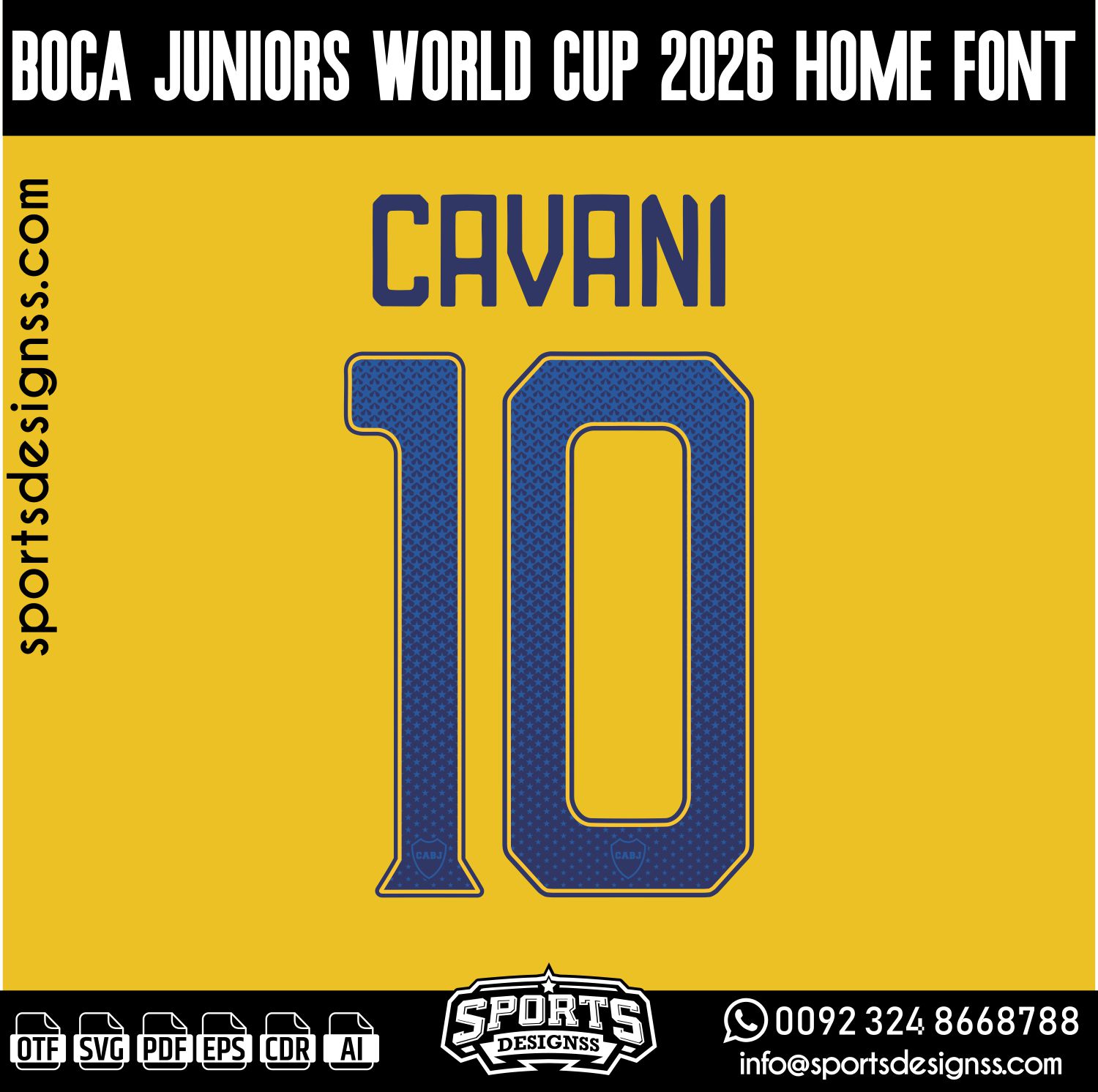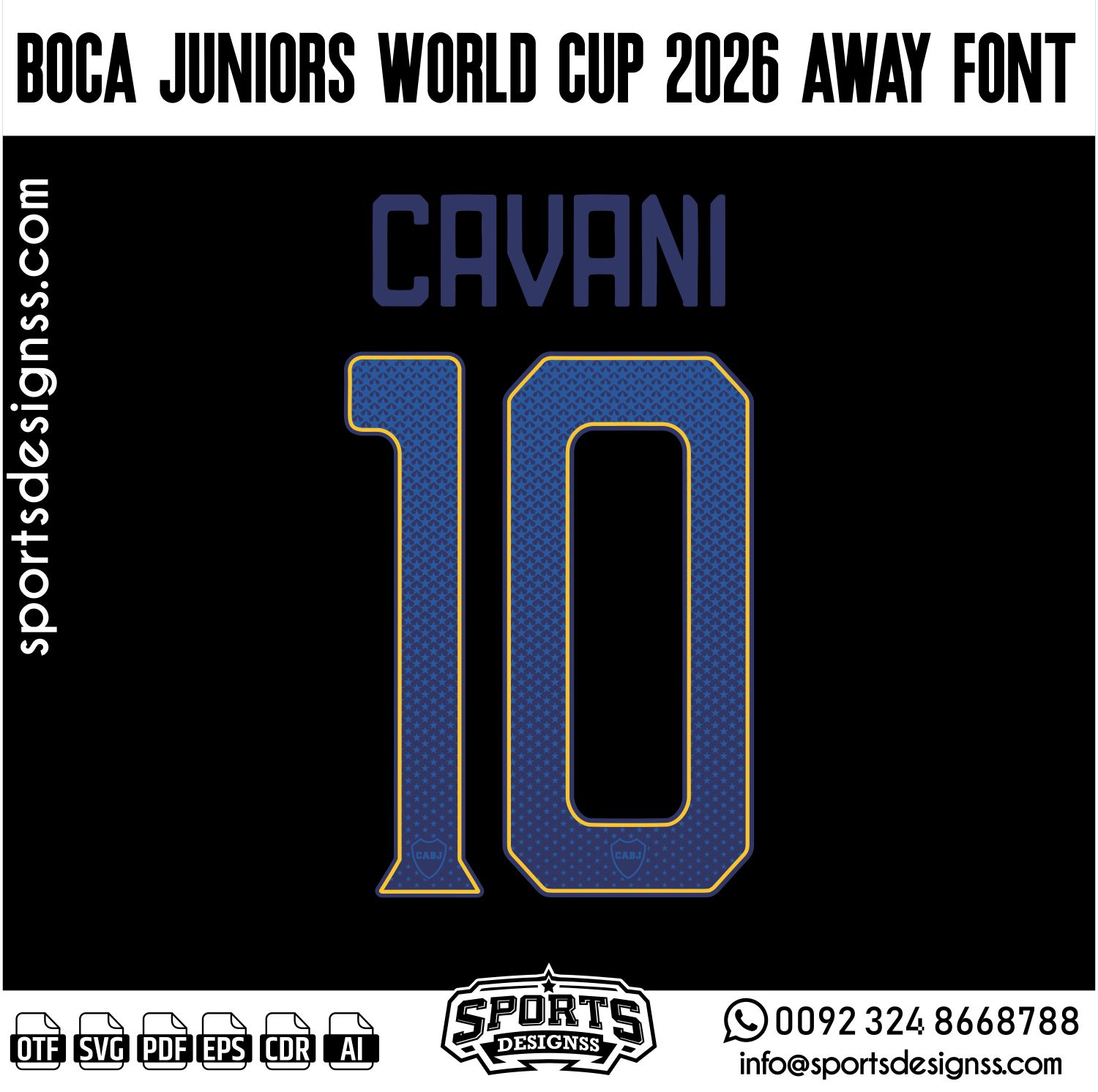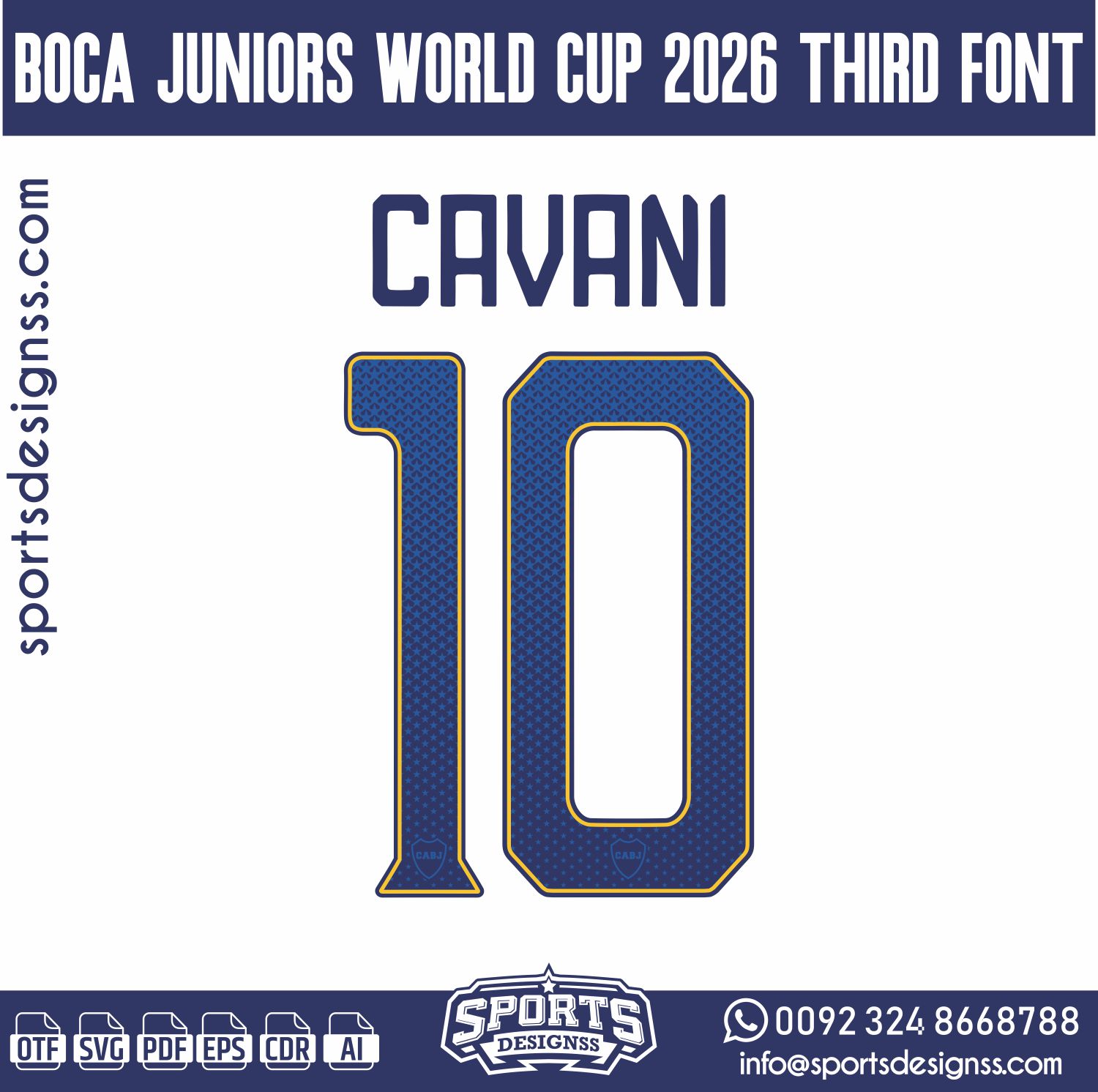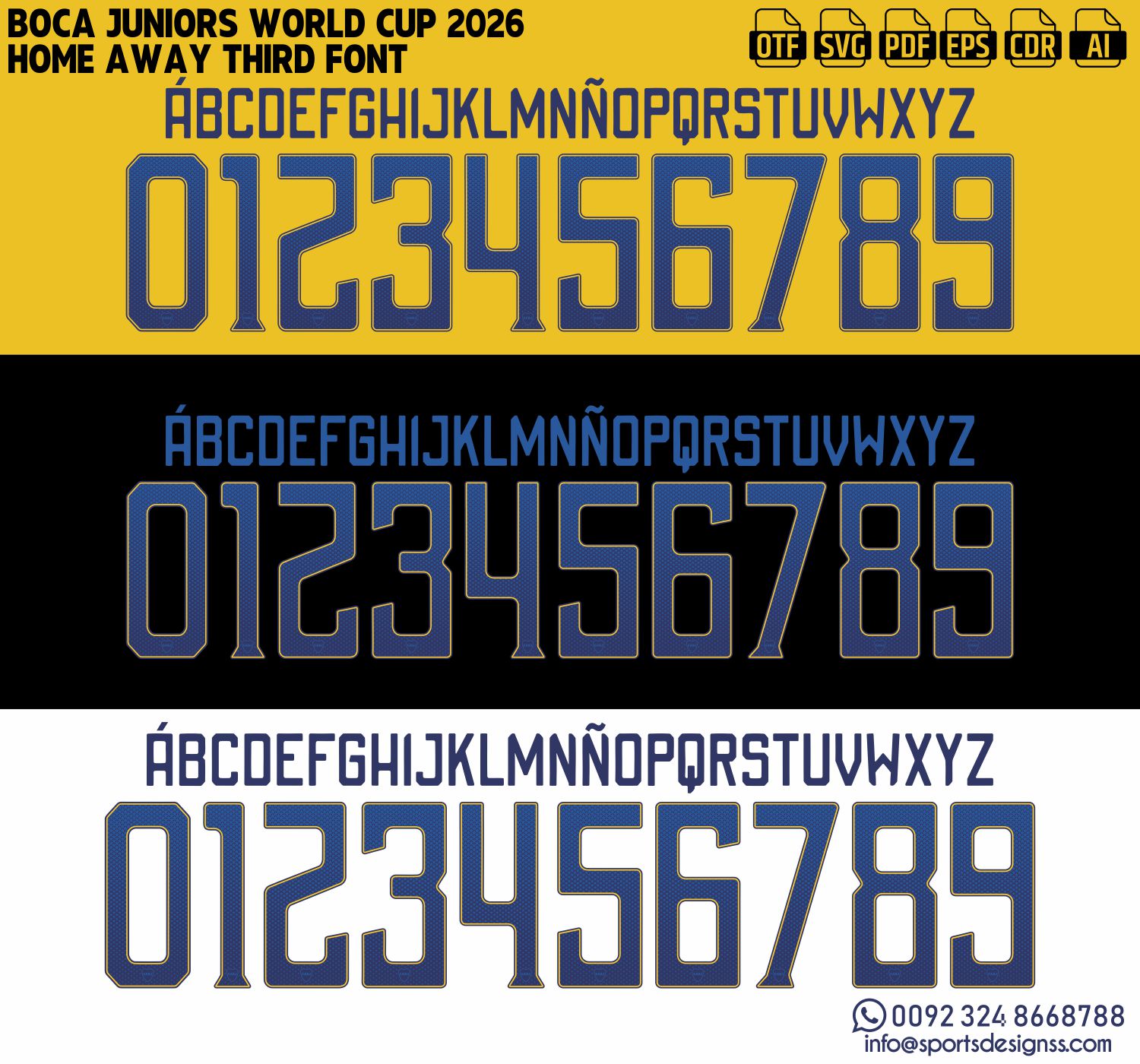
BOCA JUNIORS WORLD CUP 2026 FONT by Sports Designss – a premium football jersey font inspired by modern kits.
Recreate authentic football jersey designs with the BOCA JUNIORS WORLD CUP 2026 FONT, built for realistic, match-ready sports visuals.
Upgrade your designs with the BOCA JUNIORS WORLD CUP 2026 FONT, a premium football jersey font inspired by modern professional sports aesthetics.